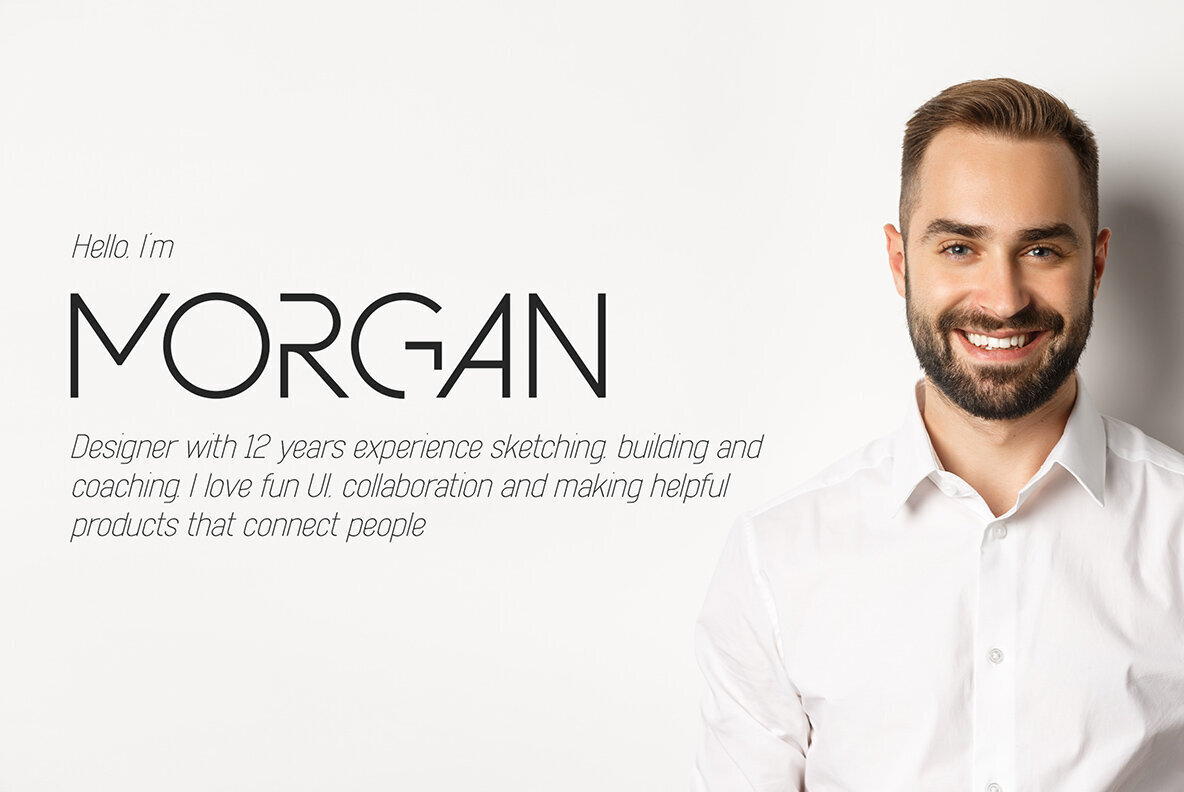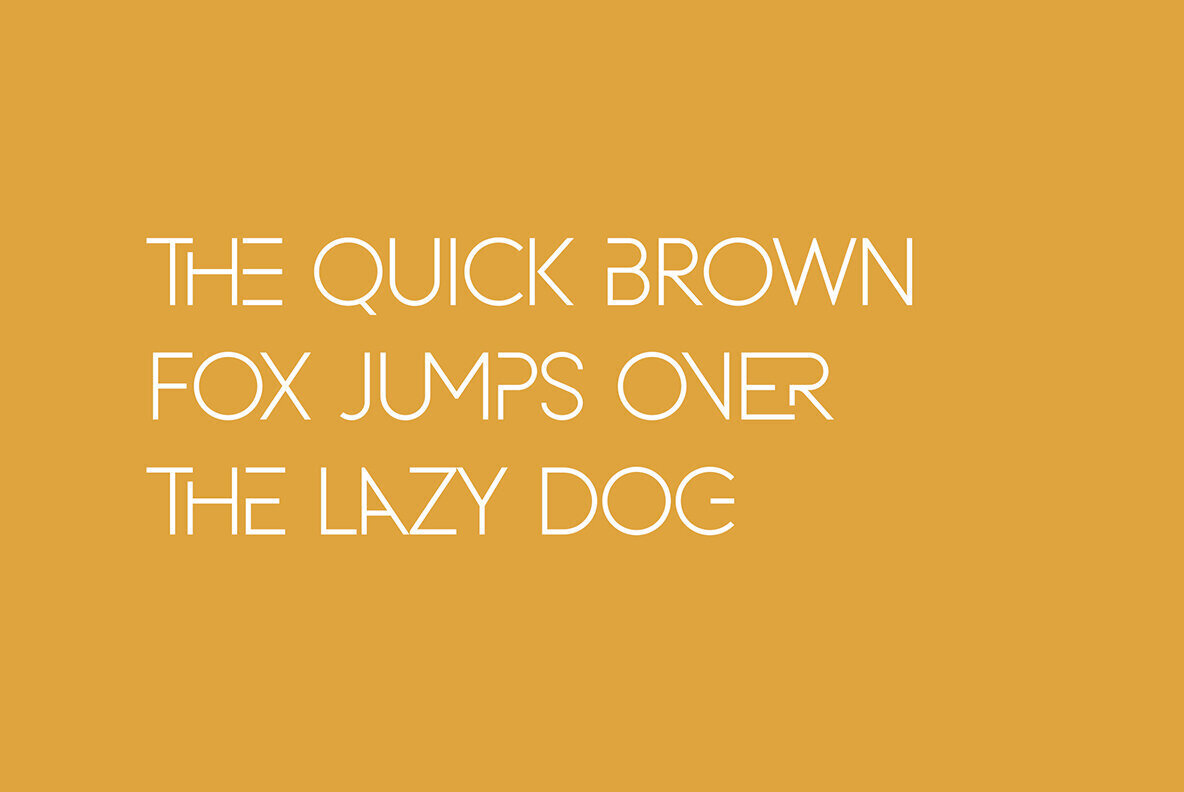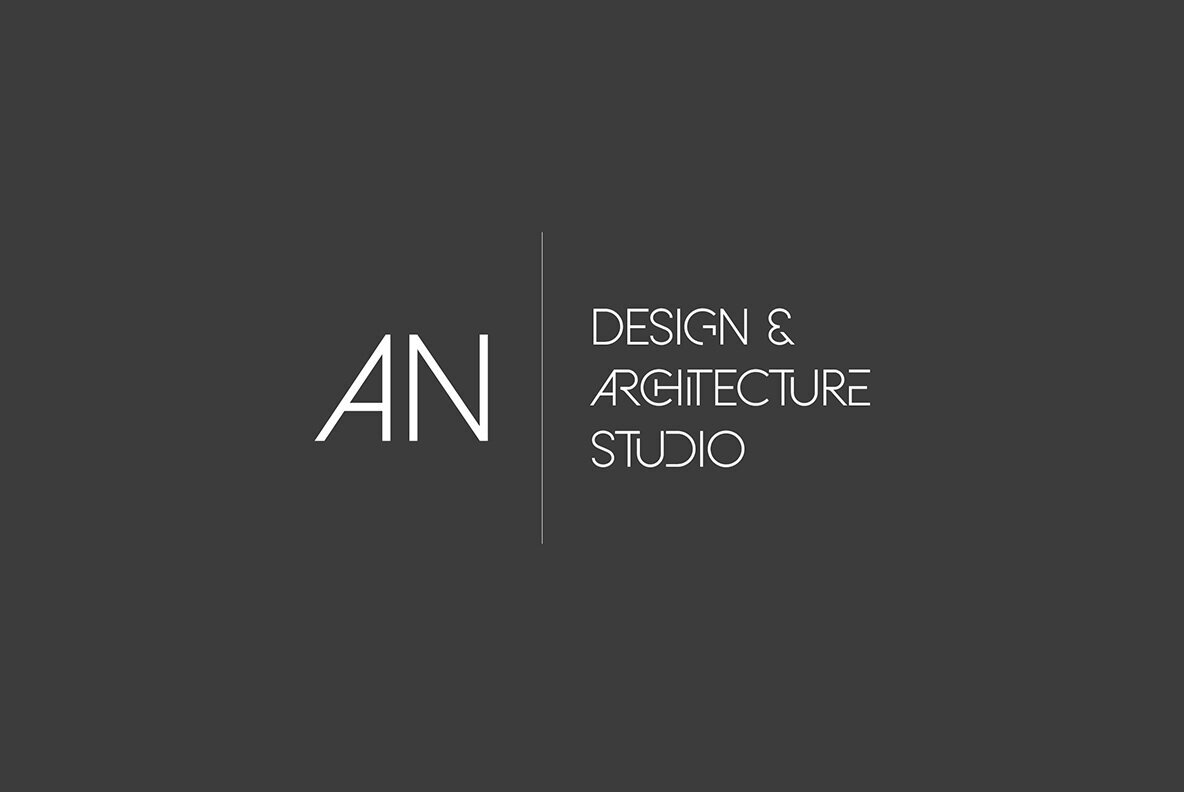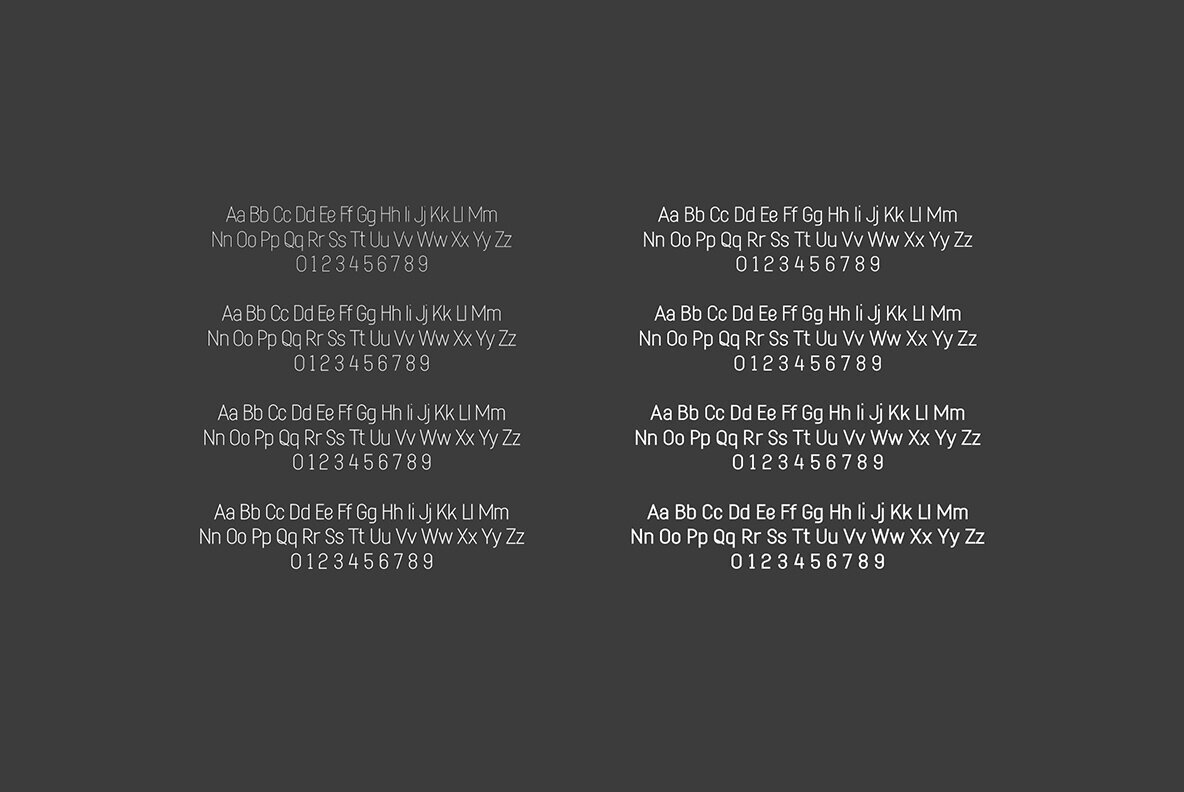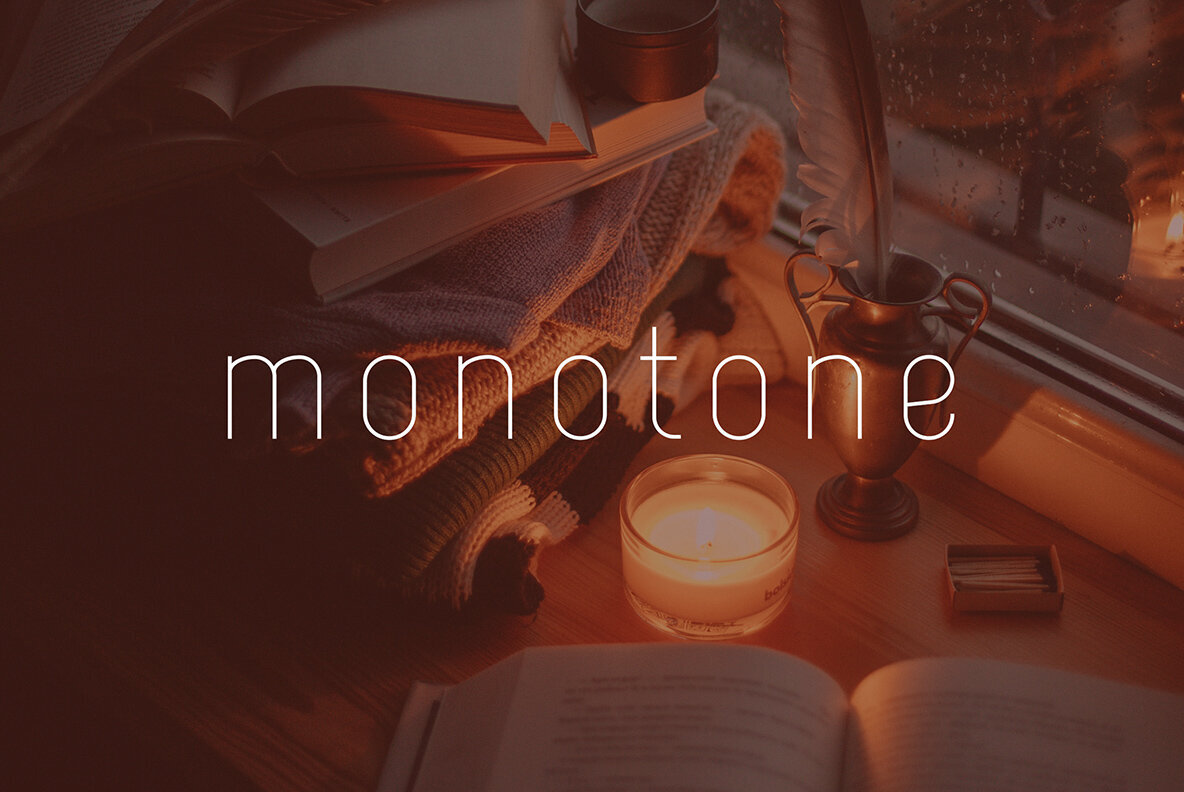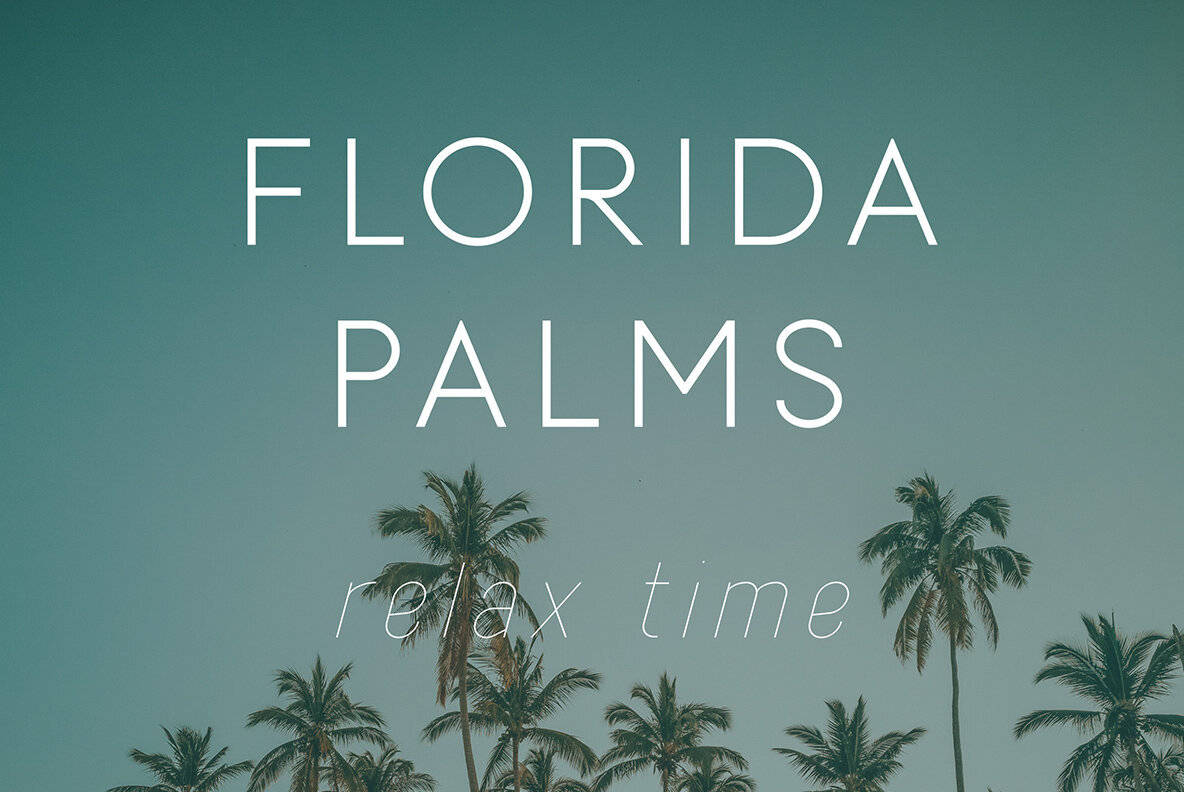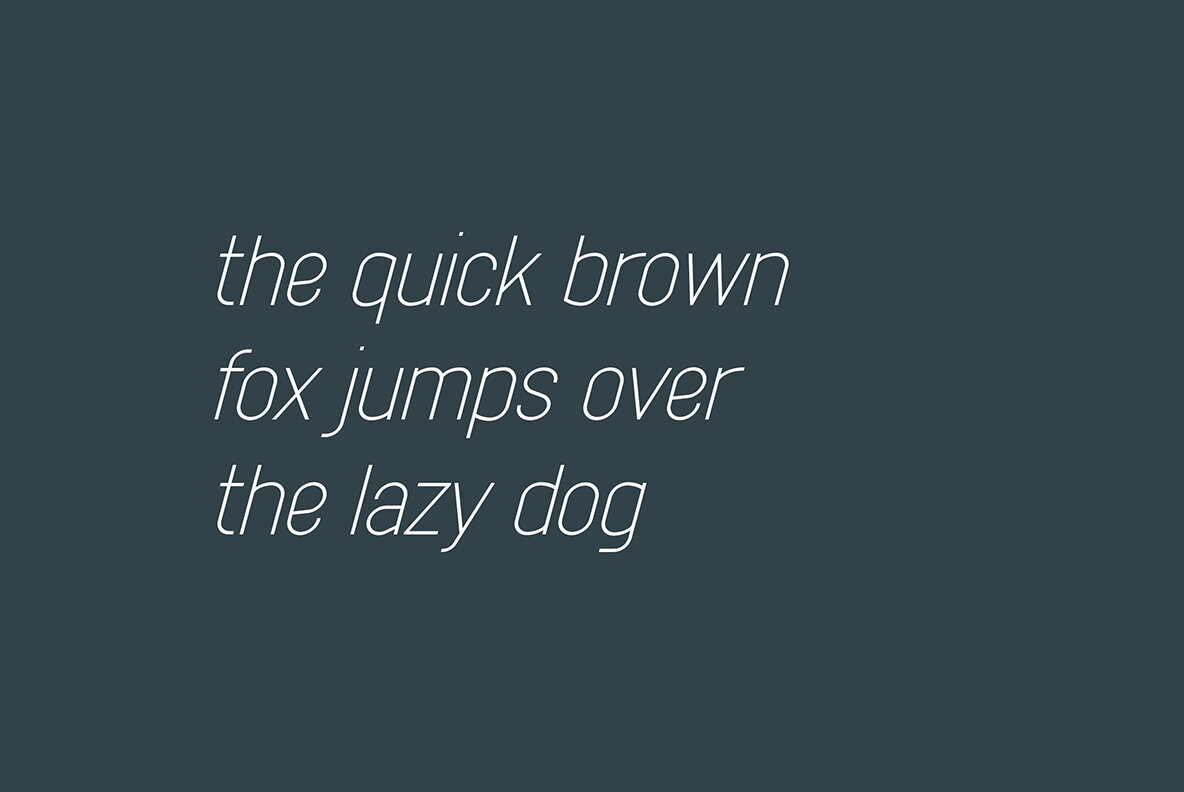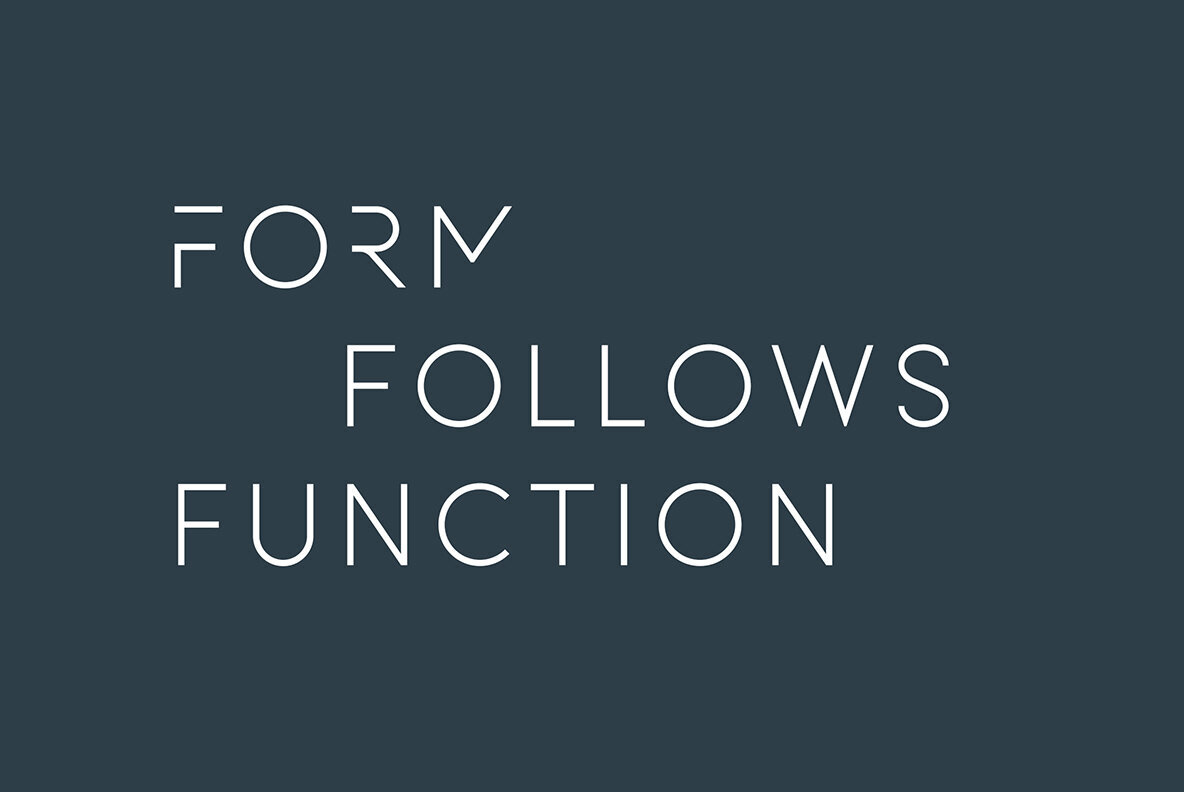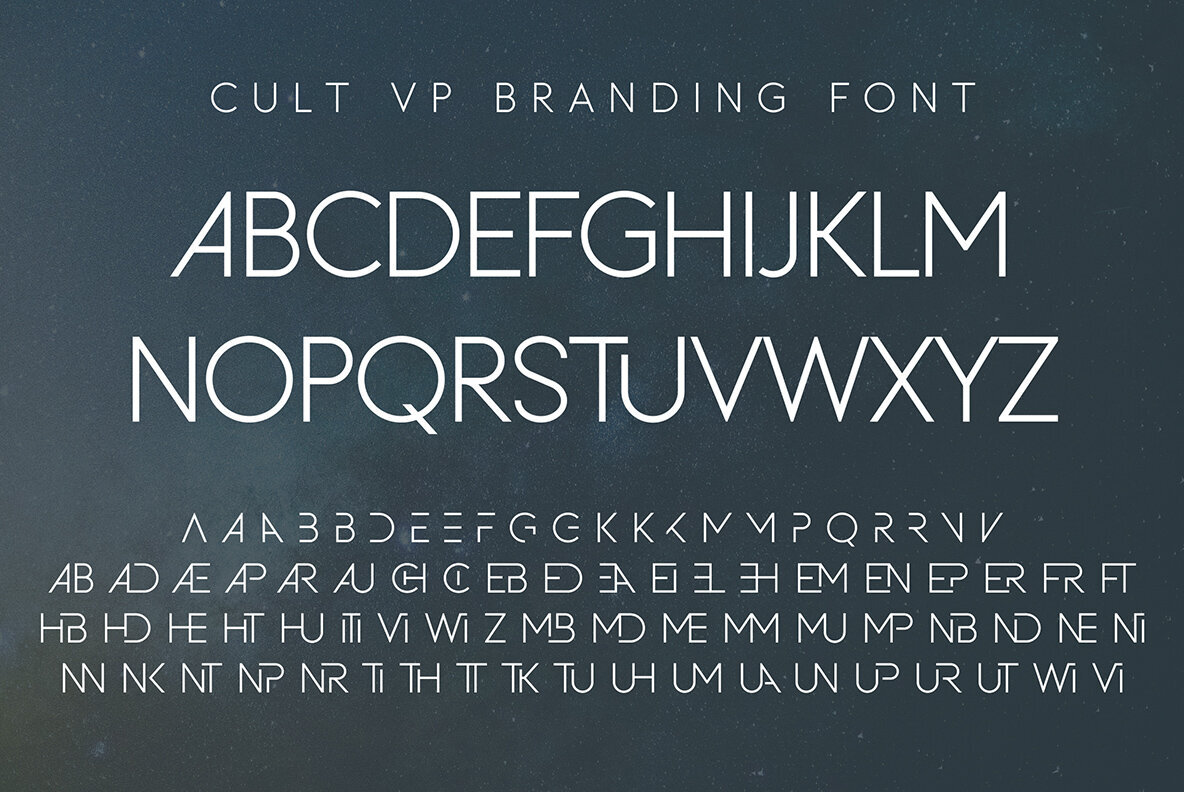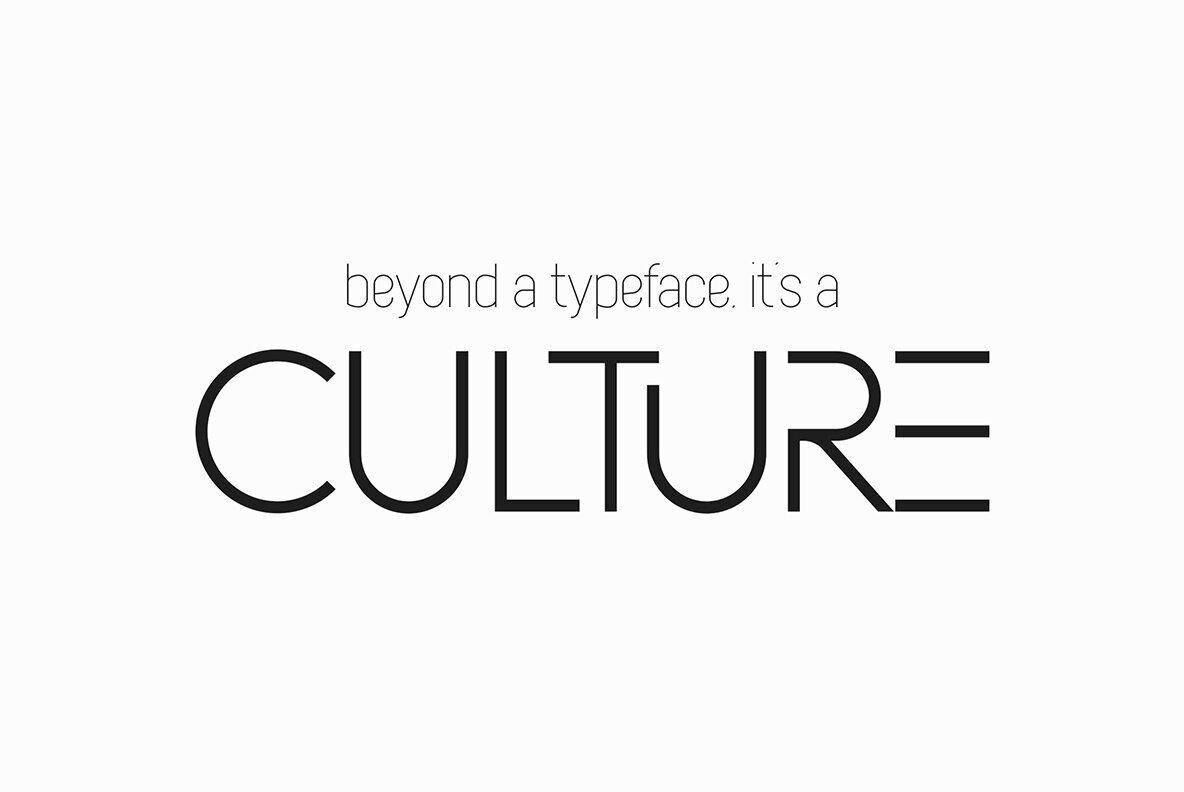
Cult VP Font
The Cult VP typeface presents a compelling blend of modernity and timeless appeal, featuring 20 elegantly crafted font styles suited for versatile design projects. It embodies a comprehensive typographic palette that spans branding, regular, and italics, making it a valuable asset for professional graphic designers seeking distinctive typographic solutions. The typeface stands out with its extensive language support, offering compatibility with 87 languages, including Afrikaans, Albanian, Czech, Danish, English, French, German, Hungarian, Italian, Polish, Spanish, and Swedish, among others. This vast linguistic range ensures Cult VP's suitability for international projects, allowing for creative expression without linguistic constraints.Cult VP: A Typographic Collection of Modern Elegance